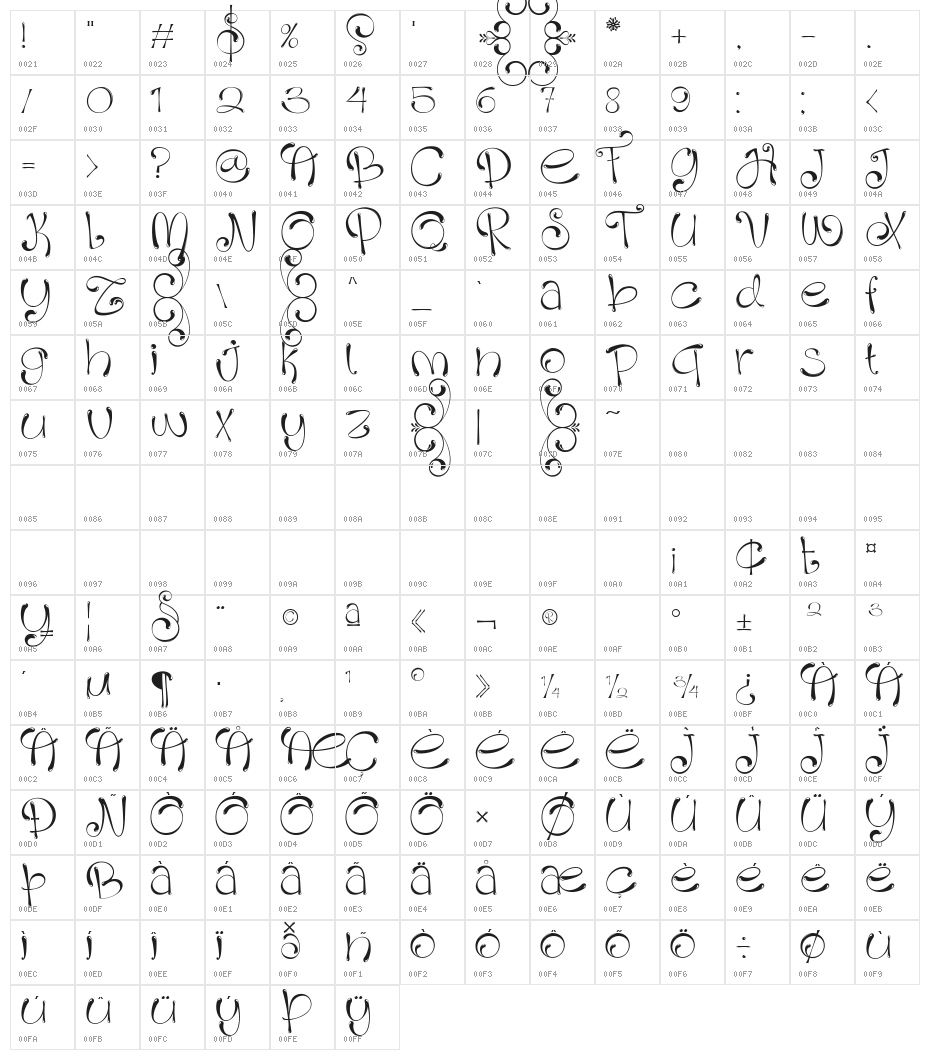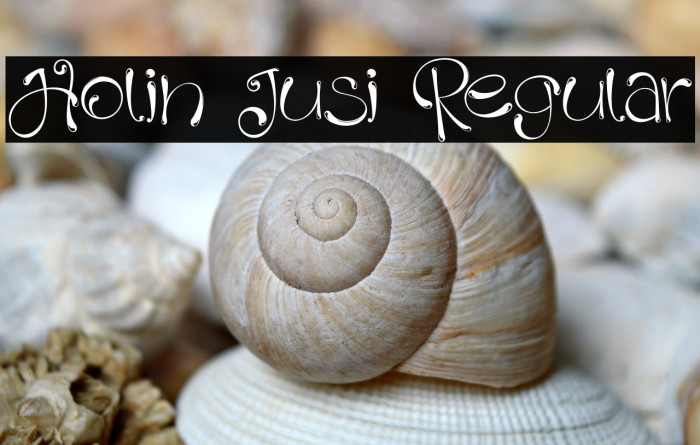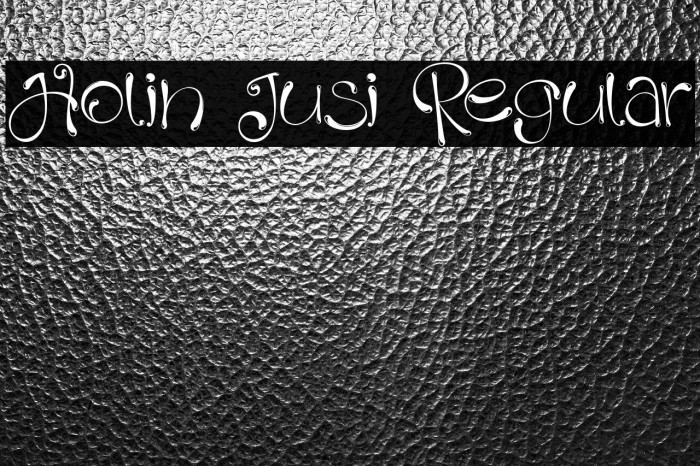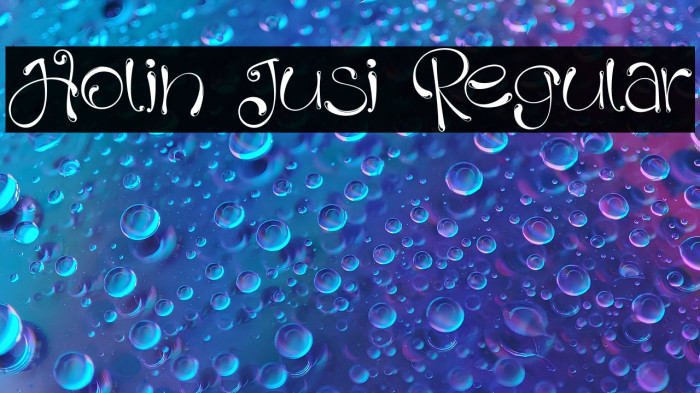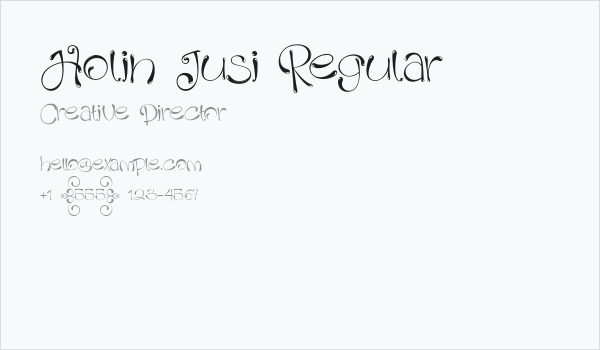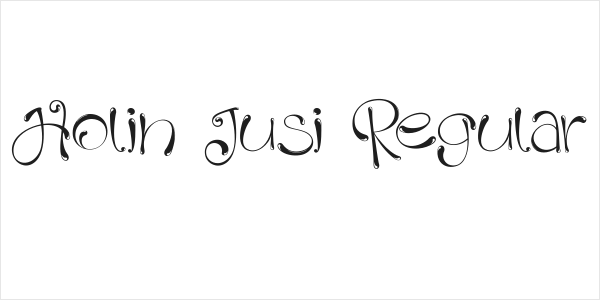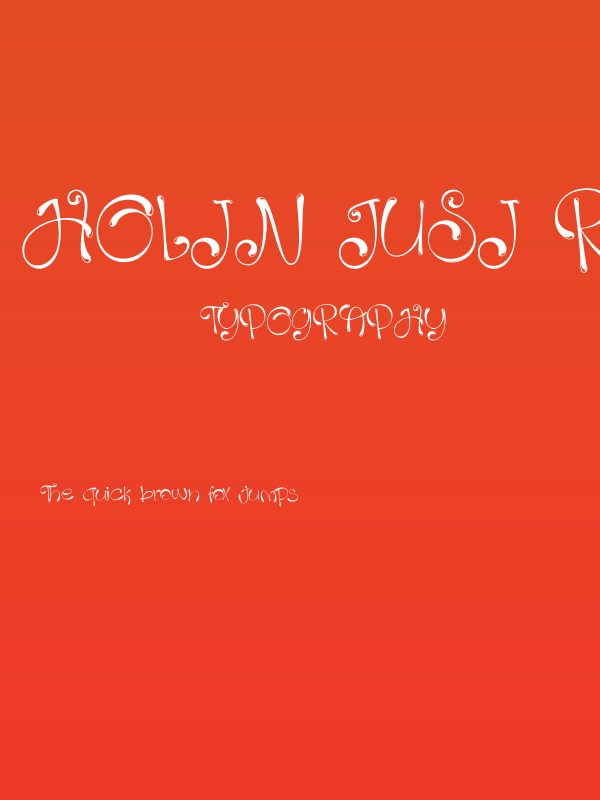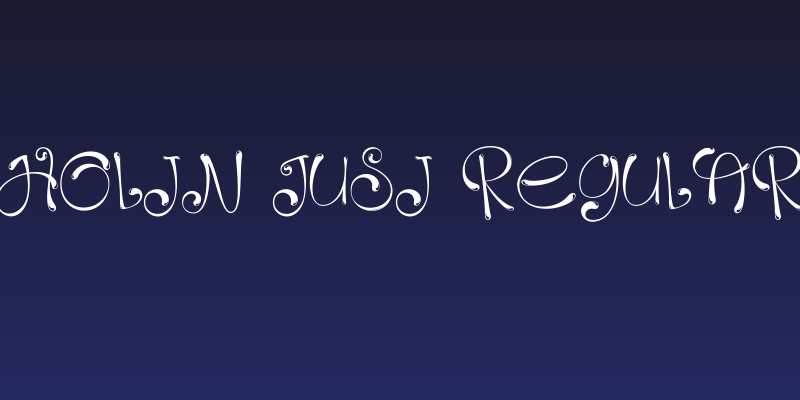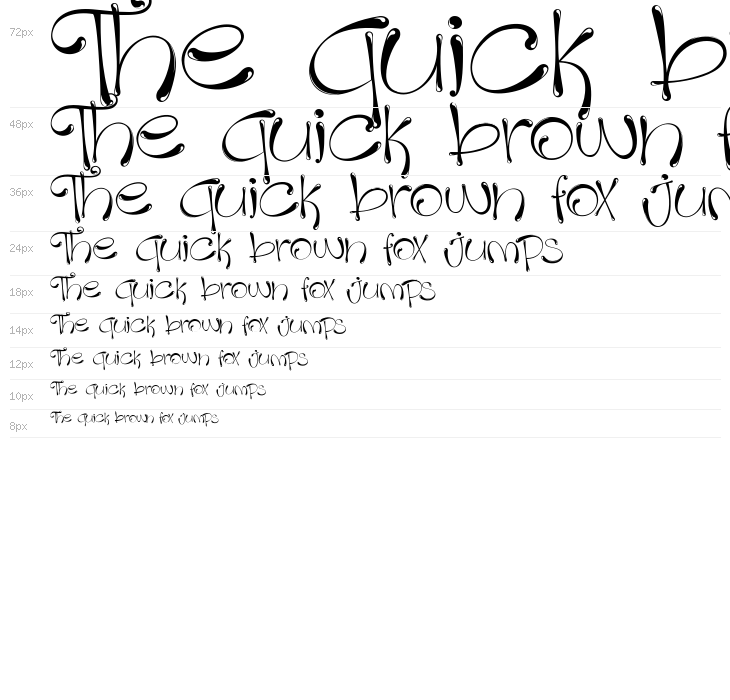
Holin Jusi Regular Font
Holin Jusi Regular Description
This font features an elegant and whimsical design with a playful touch. The characters are adorned with unique swirls and curls, giving it a decorative and artistic flair. The strokes vary in thickness, creating a dynamic contrast that adds to its visual appeal. The uppercase and lowercase letters maintain a consistent style, with rounded edges and flowing lines. Numbers and special characters are equally stylized, ensuring a cohesive look across all elements. This font is perfect for projects that require a touch of creativity and elegance.